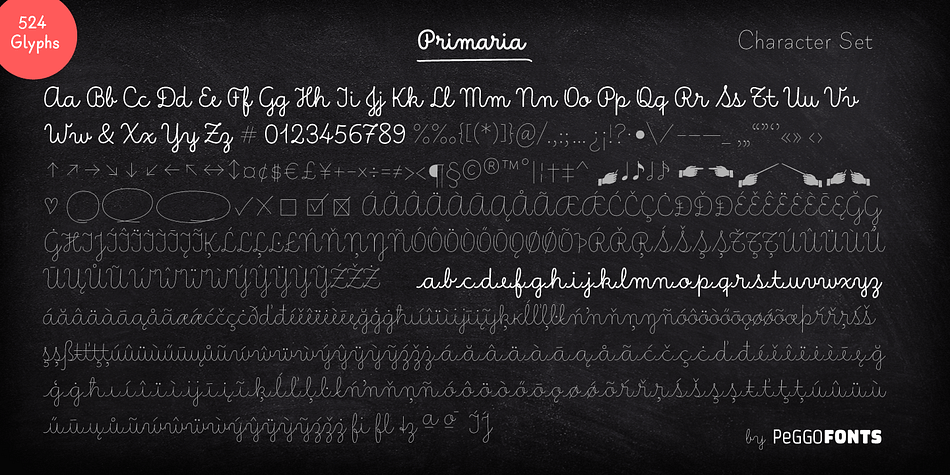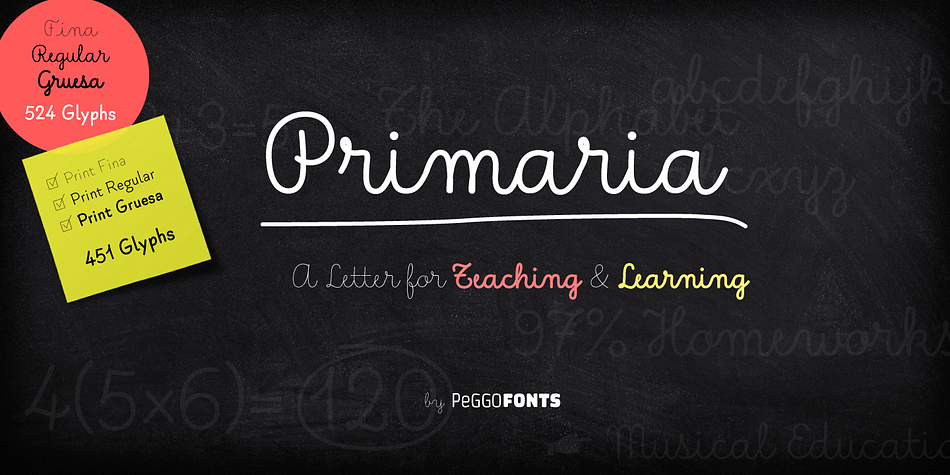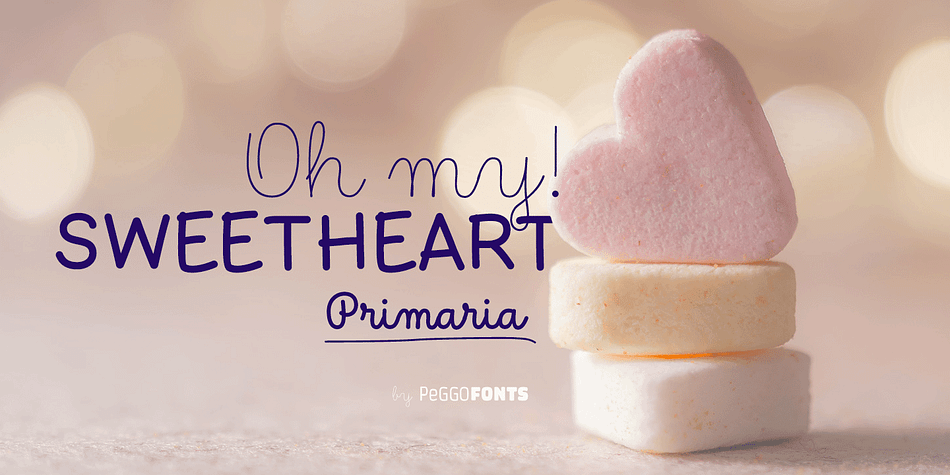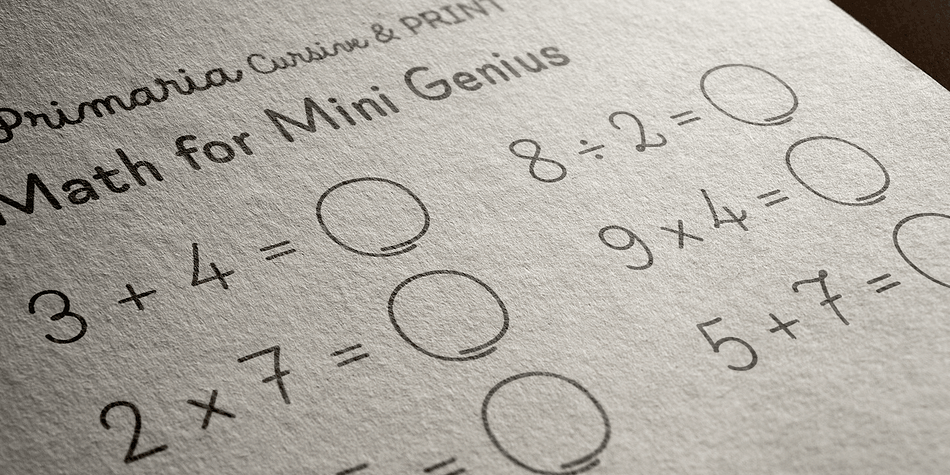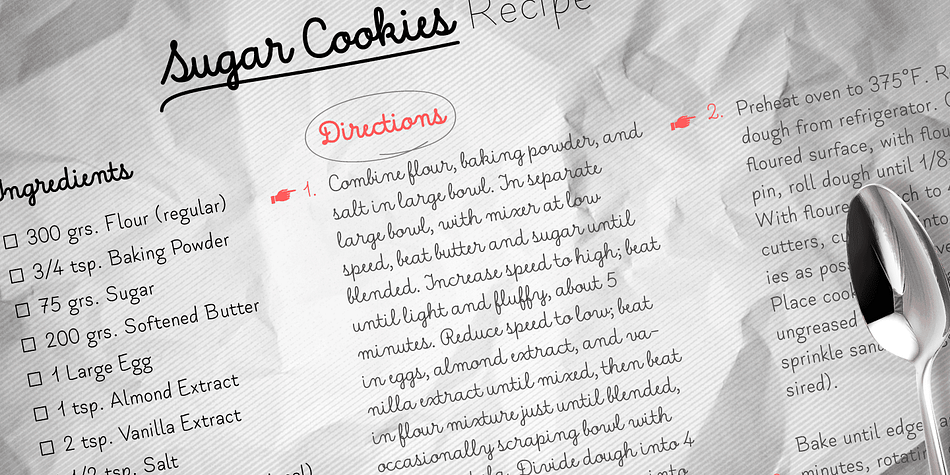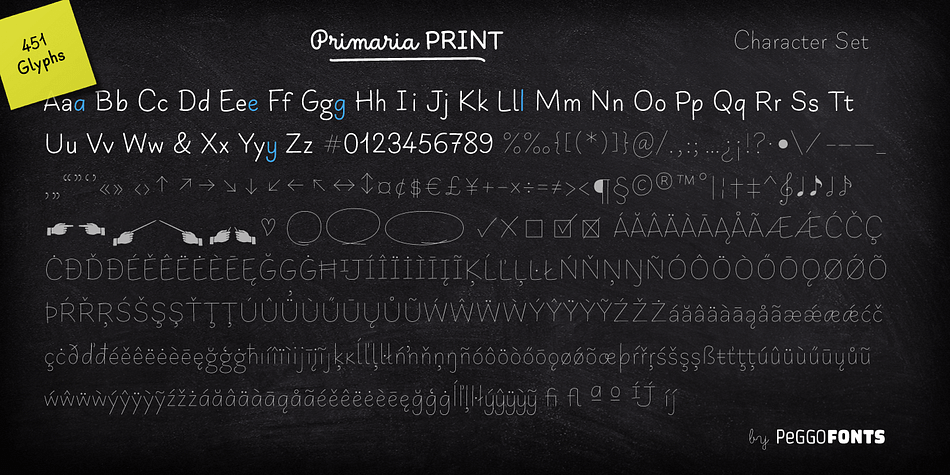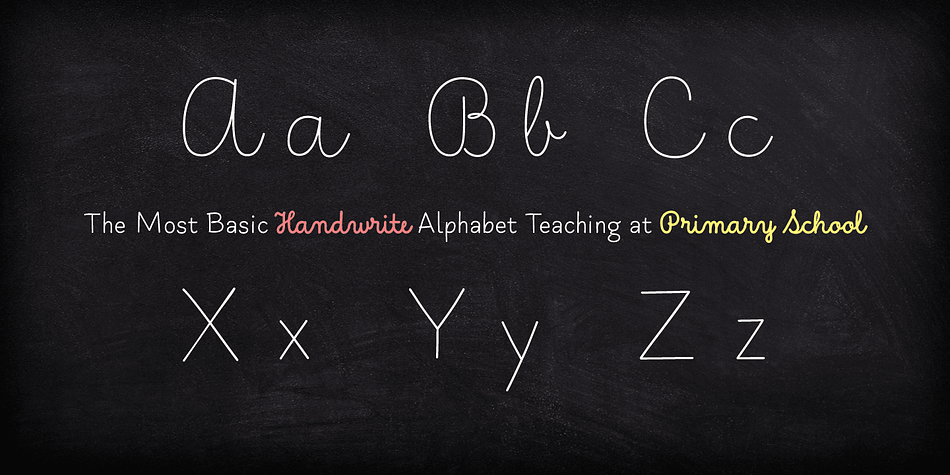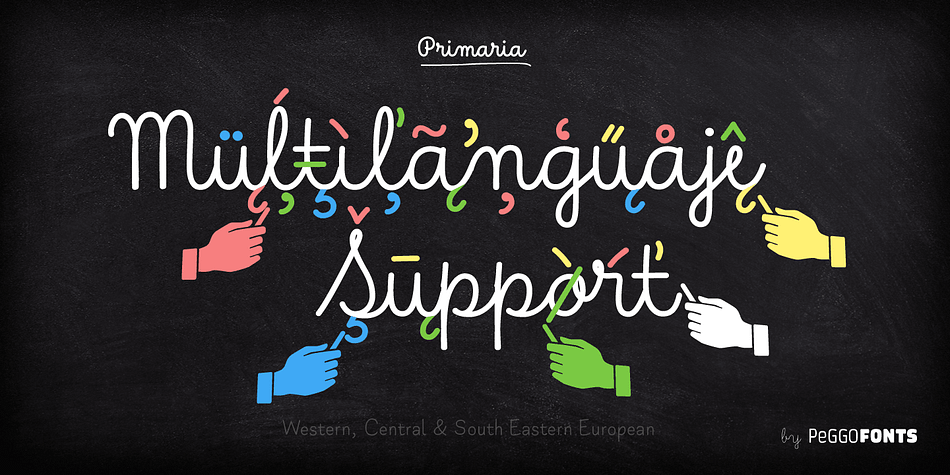
Designed by Pedro Gonzalez Jorquera, Primaria is a hand drawn, script and kids font family. This typeface has six styles and was published by PeGGO Fonts.
Primaria is a display font, inspired on the very first basic handwrite style teaching at primary school, designed in cursive and print styles in three weights each one: light, Regular and Bold, considering stylistic and typographic needs, it also contain OpenType initial lowercase alternative forms in order to get better links in those case where pairs of letters could be look better. Recommended playful and friendly design, teaching and learning stuff, children toys projects, food & drink and soft stuff.